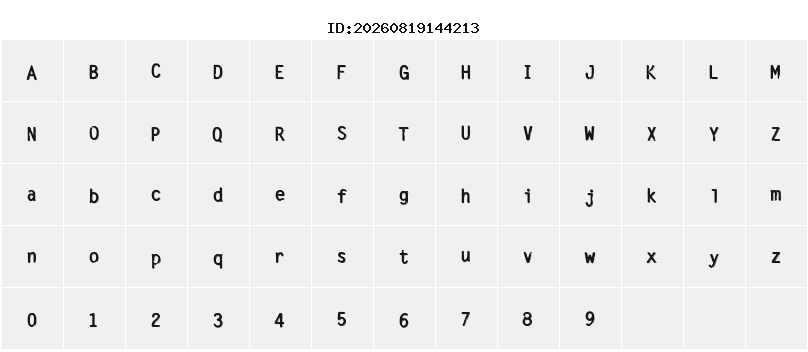
• Font Name: Silvery Tarjey
• Character Count: 103
• Designer: S. John Ross
About Silvery Tarjey.otf
Silvery Tarjey.otf is a modern, elegant sans-serif font designed for ultimate readability and visual harmony. Perfect for branding, headlines, web design, and print materials.